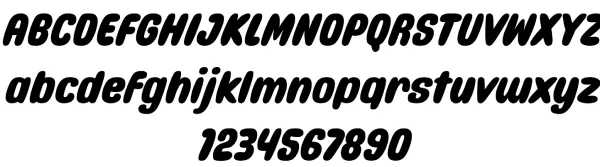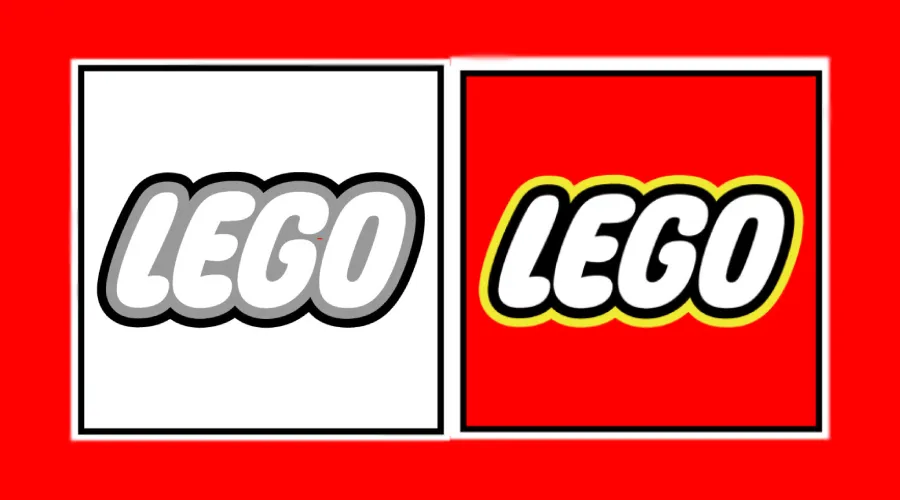
Lego-Font
Lego Font
Lego Font is a fan-made font based on the Lego logo. Lego is a Danish toy production company based in Billund that produces plastic toys, famous for its Lego bricks.
LEGO Logo
The font used for the LEGO logo is very similar to LegoThick, which is a free fan-made font based on the logo itself. This is free for personal and commercial use font. LegoThick font has only capital letters.
Another fan-made font called “Lego” also exists, designed by FontGet. However, this is a replica of the official Lego font. This is also a free for personal and commercial use font.
These are not official fonts, but rather a fan-made font based on the LEGO logo.
The Lego font is an excellent tool for anyone looking to add a touch of playfulness to their design. Its unique combination of color, shape, and lettering provides endless possibilities for creative expression.